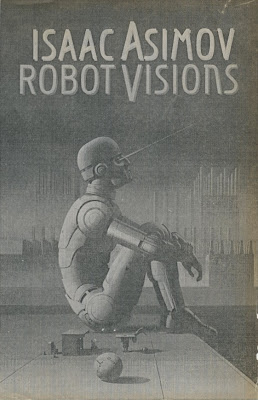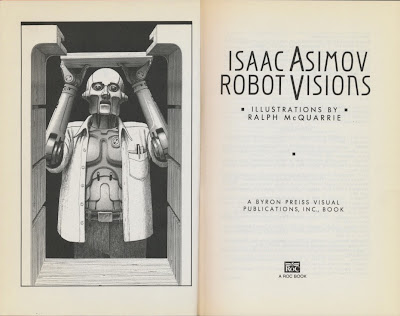
In the fall of 1989, Byron Preiss began work on another Isaac Asimov collection called Robot Visions, which was to be published by Roc. Once again he commissioned Ralph McQuarrie to handle the cover and interior art. I believe Maxfield Parrish’s Stars was used as reference. I designed the volume. After seeing the cover art I began work on choosing a typeface, whose name I don’t recall. I made a photostat (below) of the type and spaced the letters on both sides of the centered “A” and “V”. The crossbar of the “A” was made parallel to the blue ray beaming from the robot’s eye. A color comp was made of the cover with the type in place (see black-and-white photocopy).
The cover comp was sent to the publisher for approval. In early November, newspaper ads appeared for Disney’s new animated movie The Little Mermaid (see poster below). The image appeared to be based on Parrish’s Stars. I used elements from the ad and made Mermaid Visions (see black-and-white photocopy) which circulated among the editors in Byron’s office.
The publisher informed Byron that it wanted a bolder treatment for the title and the changes would be handled in-house. The book was published in April 1990 (below). I didn’t like the title typeface with the thick blue rule running behind the title and the thin blue rule dividing the letters, nor did I like the boxes around the name and title. Too busy. And I wasn’t pleased with the cover design credit, attributed to me, printed on the copyright page.
The British edition was published by Gollancz in 1990.